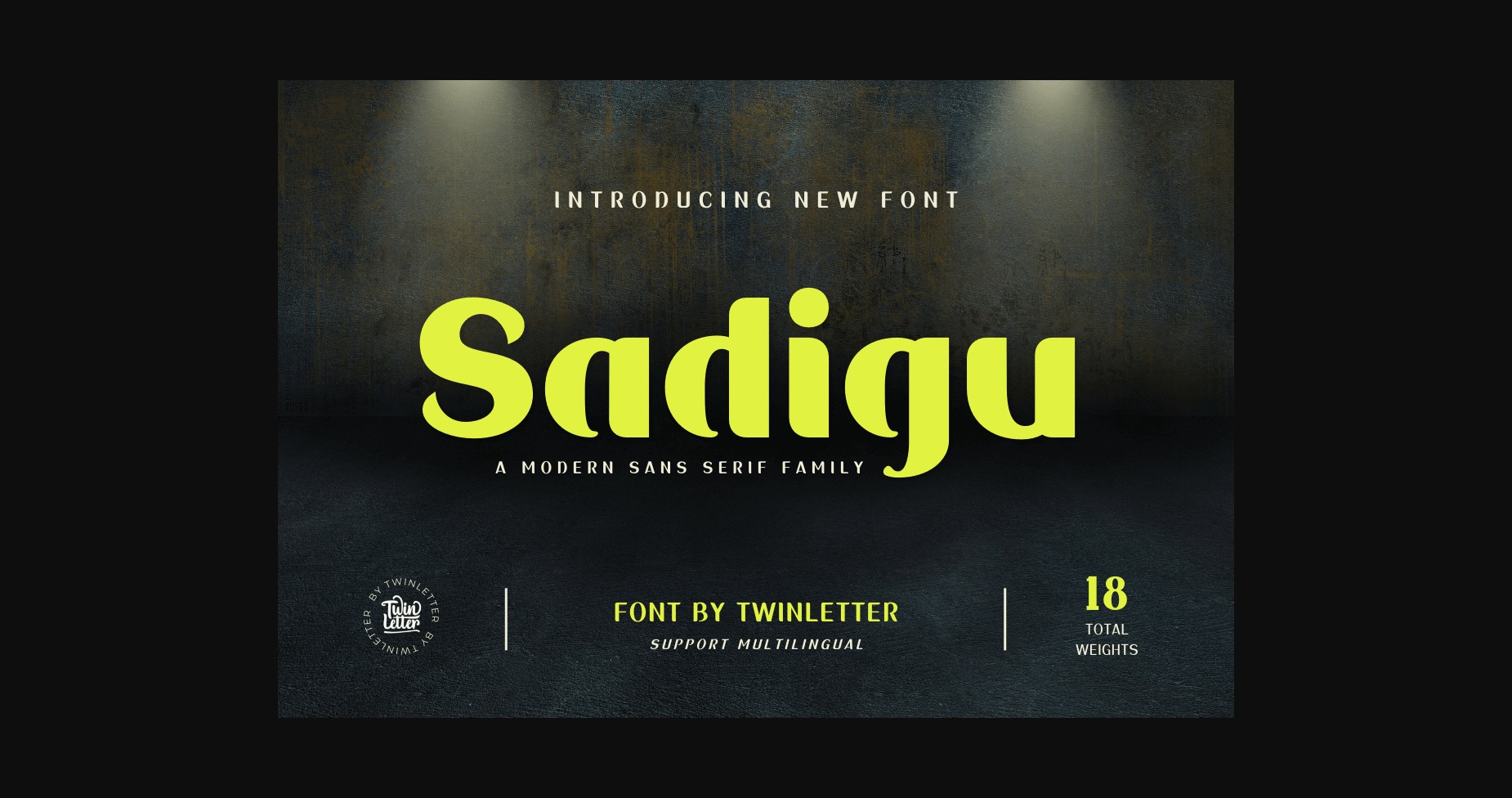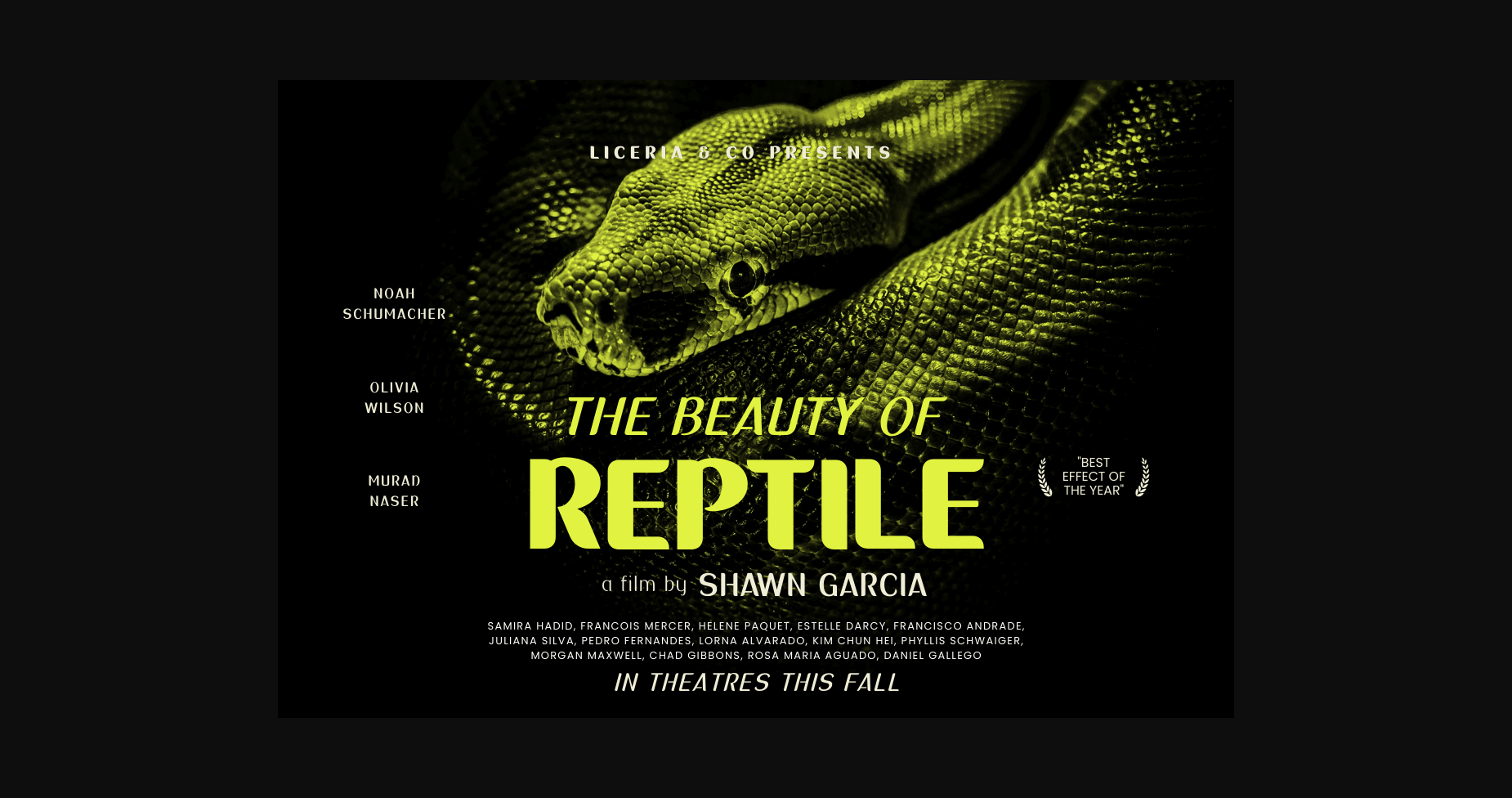
About Sadigu Font
Sadigu san serif is a unique font family that can help you stand out from the rest. Every style in this impressive collection is made to help you get the most out of your designs: advertising, posting, and many other creative projects are all made easy with this beautiful typeface. You’ll be able to create stunning looks in minutes.
Your various design projects will be perfect and extraordinary if you use this font because this font is equipped with a font family, both for titles and subtitles and sentence text, start using our fonts for your extraordinary projects.